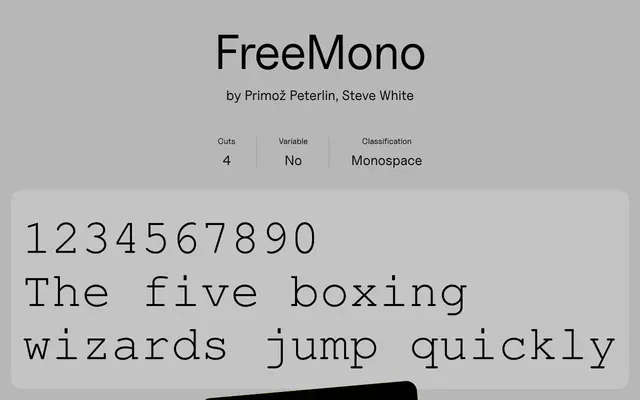
FreeMono
A GPL-licensed monospaced typeface by Primož Peterlin and Steve White, available in four cuts for personal and commercial use.
A fixed-width typeface released under the GNU General Public License v2.0, permitting commercial use, modification and redistribution with certain conditions. It ships in four cuts and is available freely via Uncut. Suits coding, terminal and technical typesetting contexts where a no-cost, freely modifiable mono is required.
Explicitly classified as Monospace on the page; a fixed-width typeface designed for coding and terminal use.